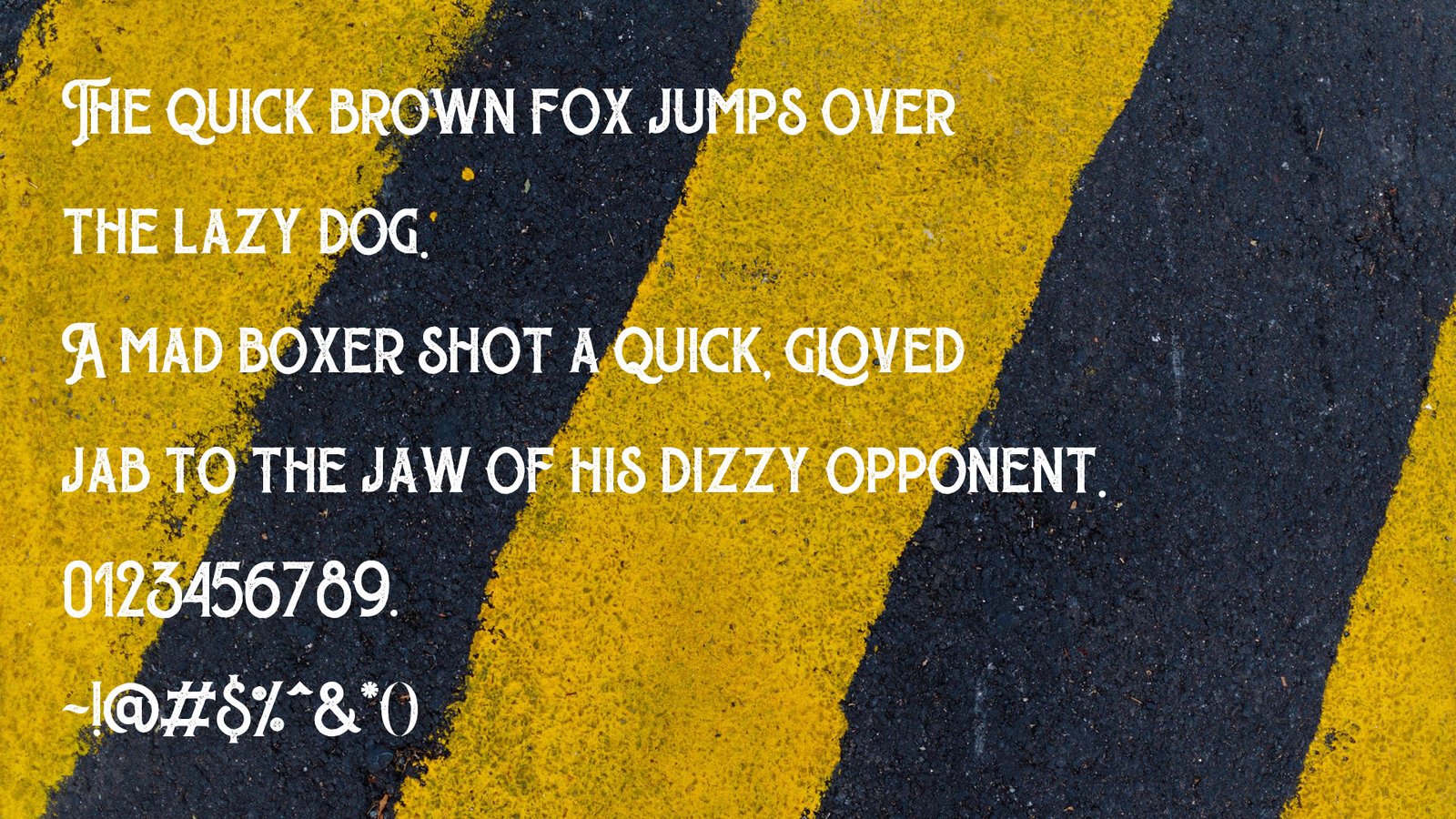
Sherlock Font is really Attractive and gorgeous font. This font falls under the category of Display typeface font design. This Font-style design was designed and published by DikasStudio. This Typeface font-style design was designed for the London Underground system in 1916.
Sherlock font supports OpenType features and also supports so many languages.
This font style design creates and gives a vintage feel, that will give awesome look to any type of design. For example, Hand-made stylish characters, T-shirt design, and projects.